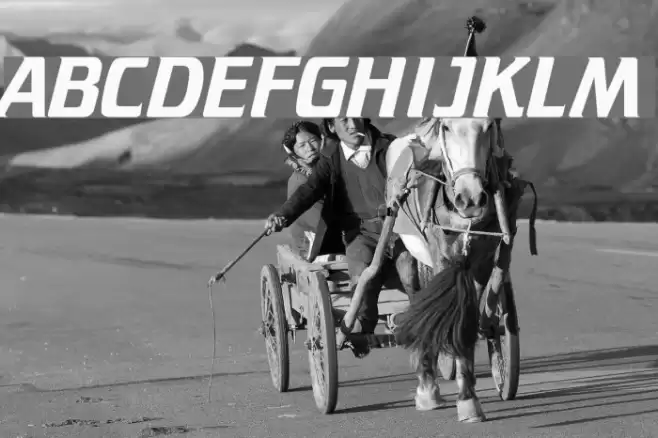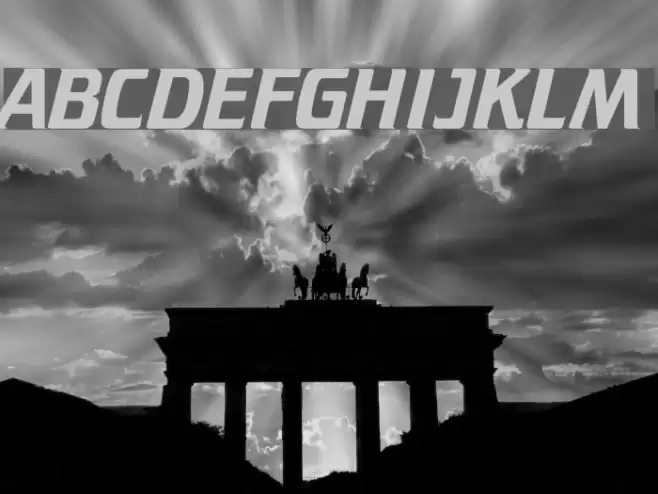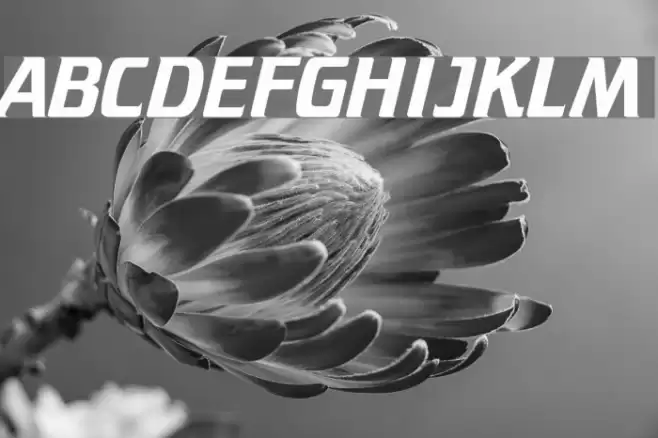
FederationCrille Font
FederationCrille Description
This font features a modern, sleek design with a forward-leaning italic style that conveys a sense of motion and dynamism. The characters are slightly condensed, giving a compact appearance while maintaining readability. The strokes are consistent in weight, providing a uniform look across all characters. The uppercase letters are bold and assertive, while the lowercase letters maintain a cohesive flow. The numerals are clear and distinct, making them suitable for various applications. Special characters are well-defined, ensuring versatility in design projects.
A modern, italicized font with a sleek, dynamic appearance from Uncategorized fonts.
- Proposed Projects: Ideal for branding, sports team logos, technology-related designs, and dynamic advertising materials.
- Width: Condensed
- Use Case: Headlines, Logos, Advertising